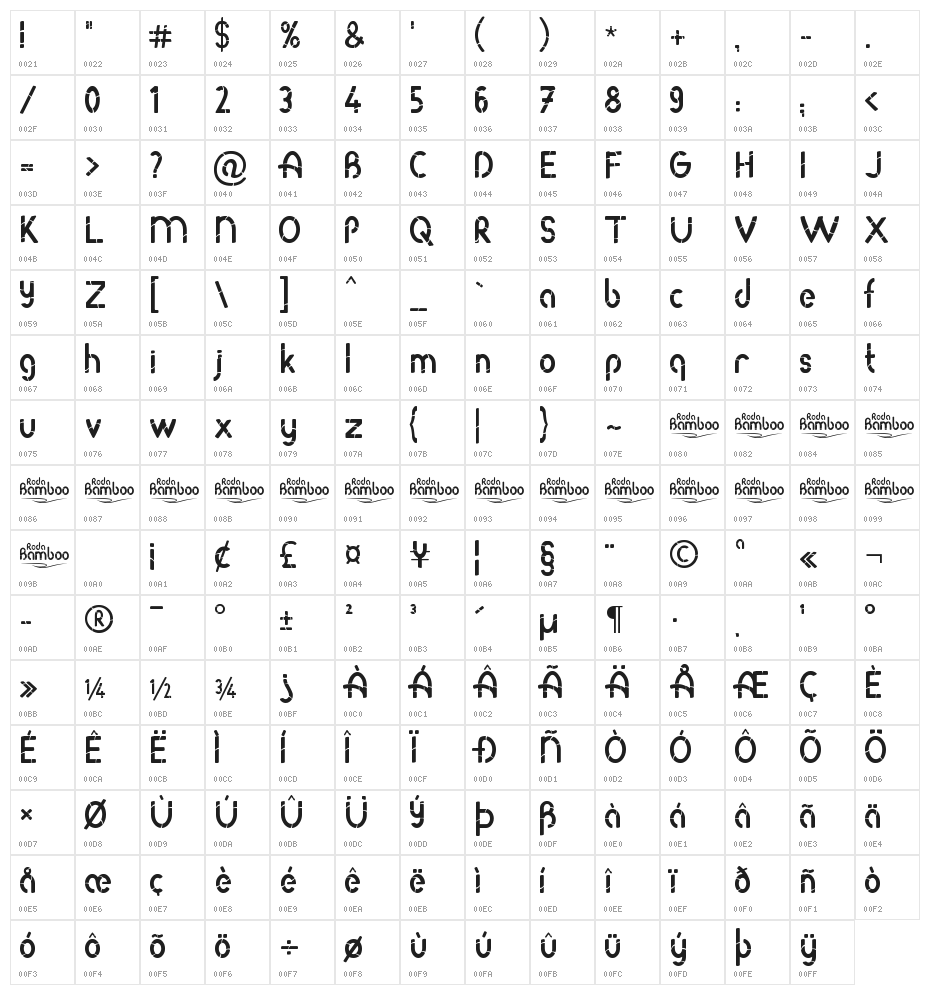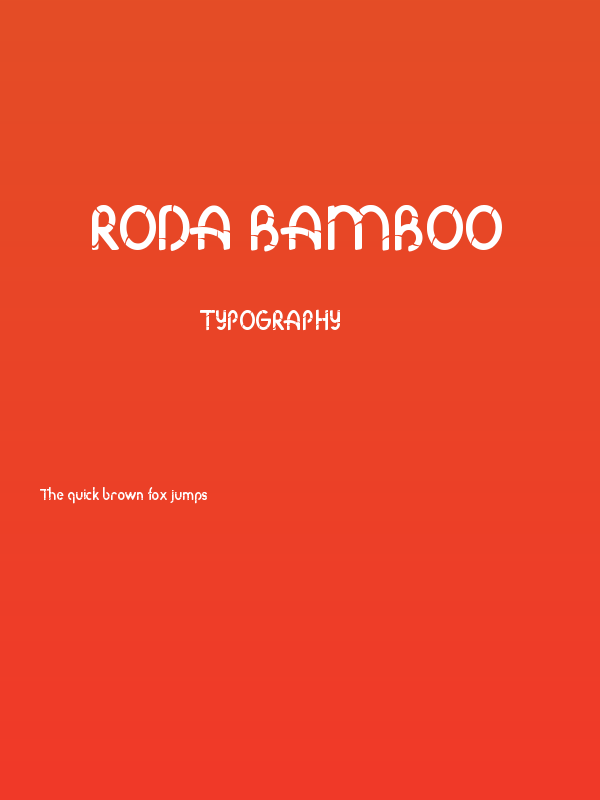
Roda Bamboo Font
Roda Bamboo Description
This font features a unique, modern design with a stencil-like appearance. Each character is composed of bold, rounded strokes that are interrupted by clean, angular cuts, creating a dynamic and eye-catching effect. The uppercase and lowercase letters maintain a consistent style, with smooth curves and a geometric structure. Numbers and special characters follow the same design principles, ensuring uniformity across all glyphs. The font's distinct style makes it suitable for creative and unconventional projects, where a bold statement is desired.
Proposed ProjectsIdeal for branding, posters, packaging, and any project requiring a bold, modern aesthetic.